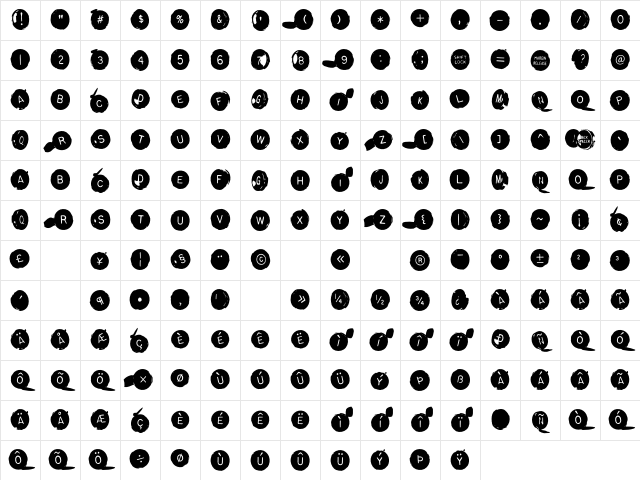
Backspacer Round Free Font
Backspacer Round
Style: Round
Design Context for Backspacer
Backspacer softens its letterforms with rounded terminals, giving it an approachable, friendly quality that works well in consumer-facing and digital contexts.
Font Pairing: Pairs well with a rounded or humanist sans for body copy, maintaining the friendly tone without relying on Backspacer to carry extended reading.
Pro Tip: Use Backspacer for UI elements, app interfaces, and anywhere a friendly, approachable tone needs to be maintained without sacrificing clarity.